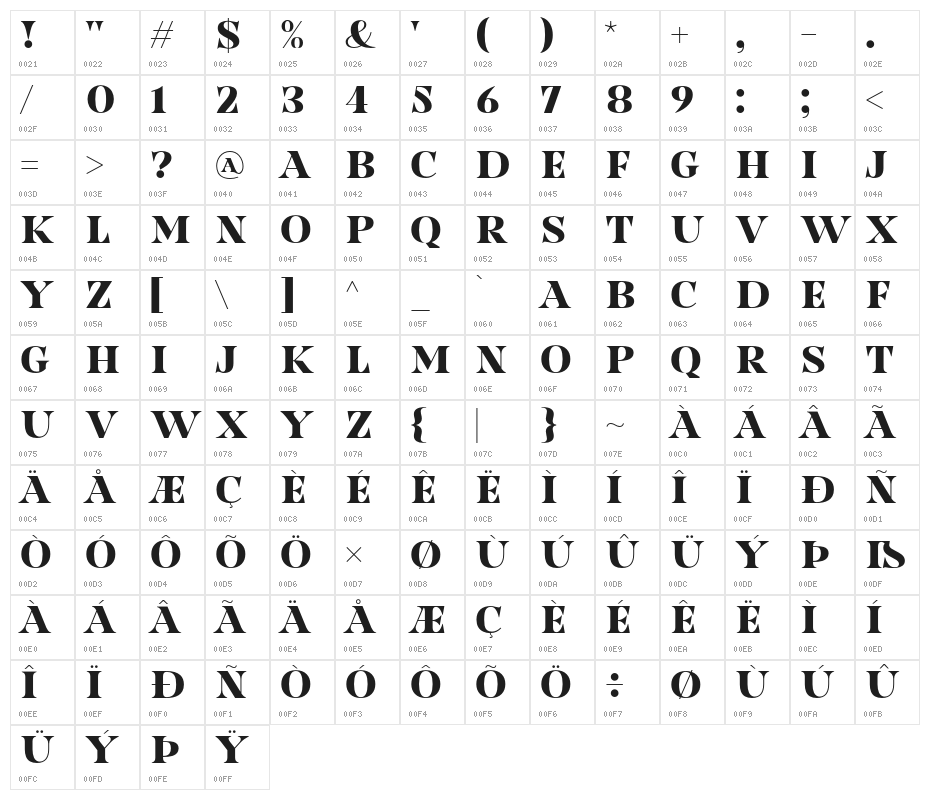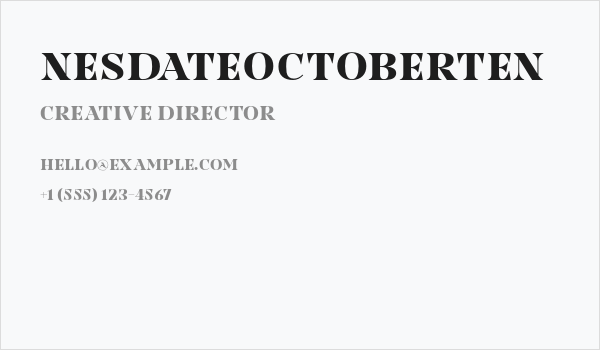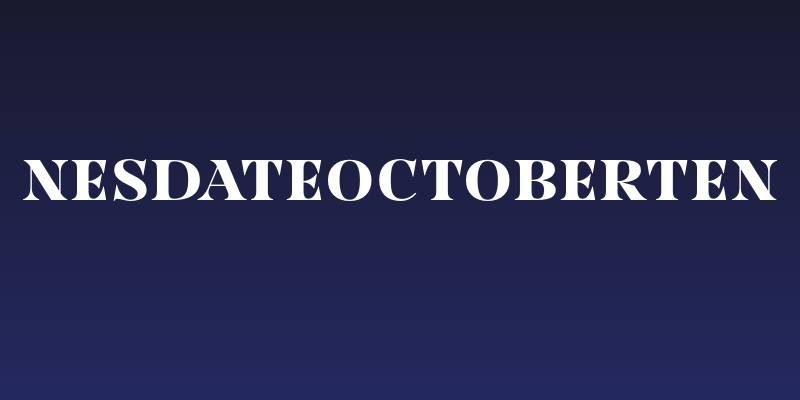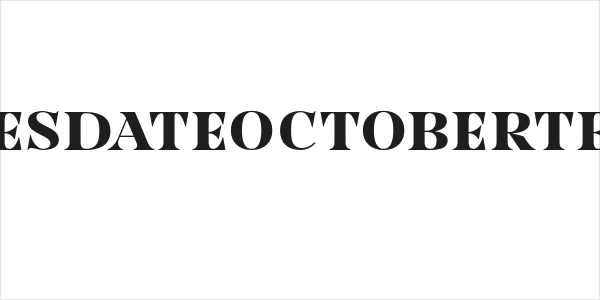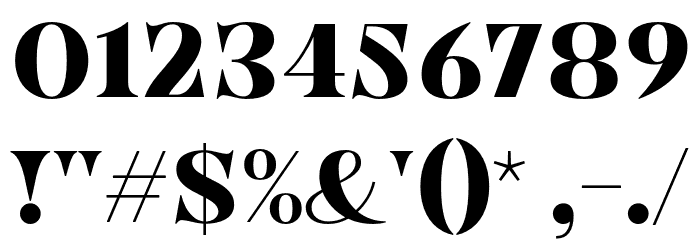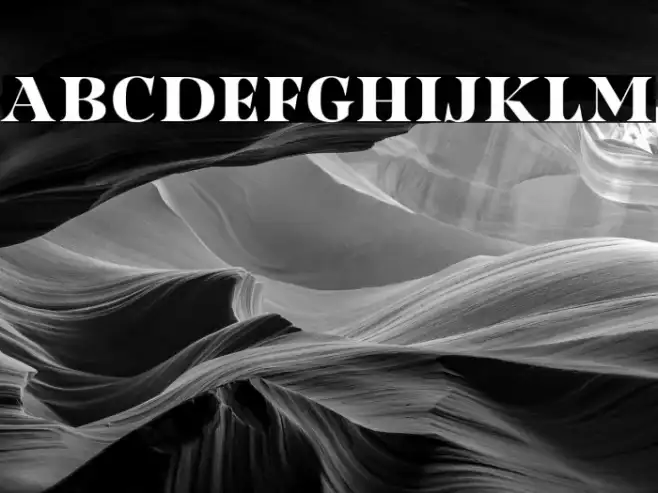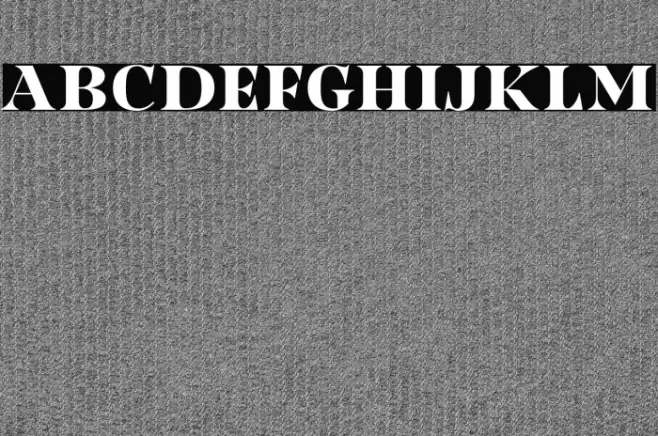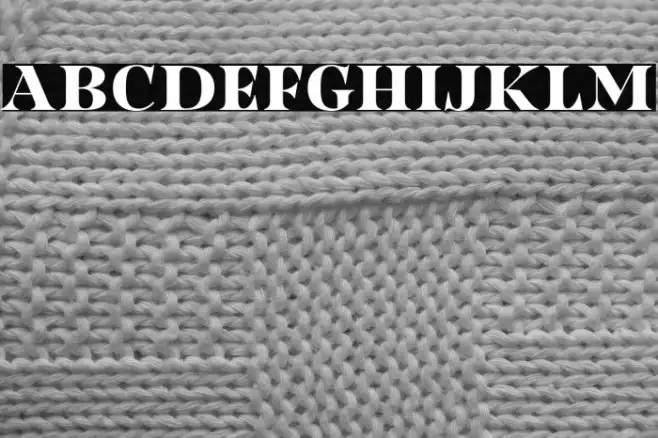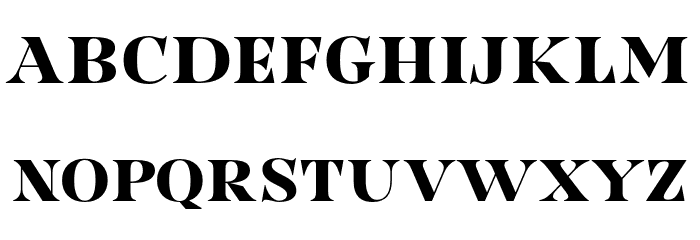
NesdateOctoberTen Font
NesdateOctoberTen Description
This font features a bold and commanding presence with its thick, strong strokes and high contrast between thick and thin lines. The serifs are pronounced and add a touch of elegance and authority to the characters. The uppercase letters are particularly striking, with a classic and timeless appeal. The numerals are equally bold, ensuring they stand out in any context. Special characters are designed with the same attention to detail, maintaining the overall cohesive look of the font. This typeface is ideal for making a statement and capturing attention.
| Use Case | Headlines, Logos, Editorial Design |
| Proposed Projects | Ideal for headlines, branding, editorial design, and any project requiring a strong, classic serif font. |